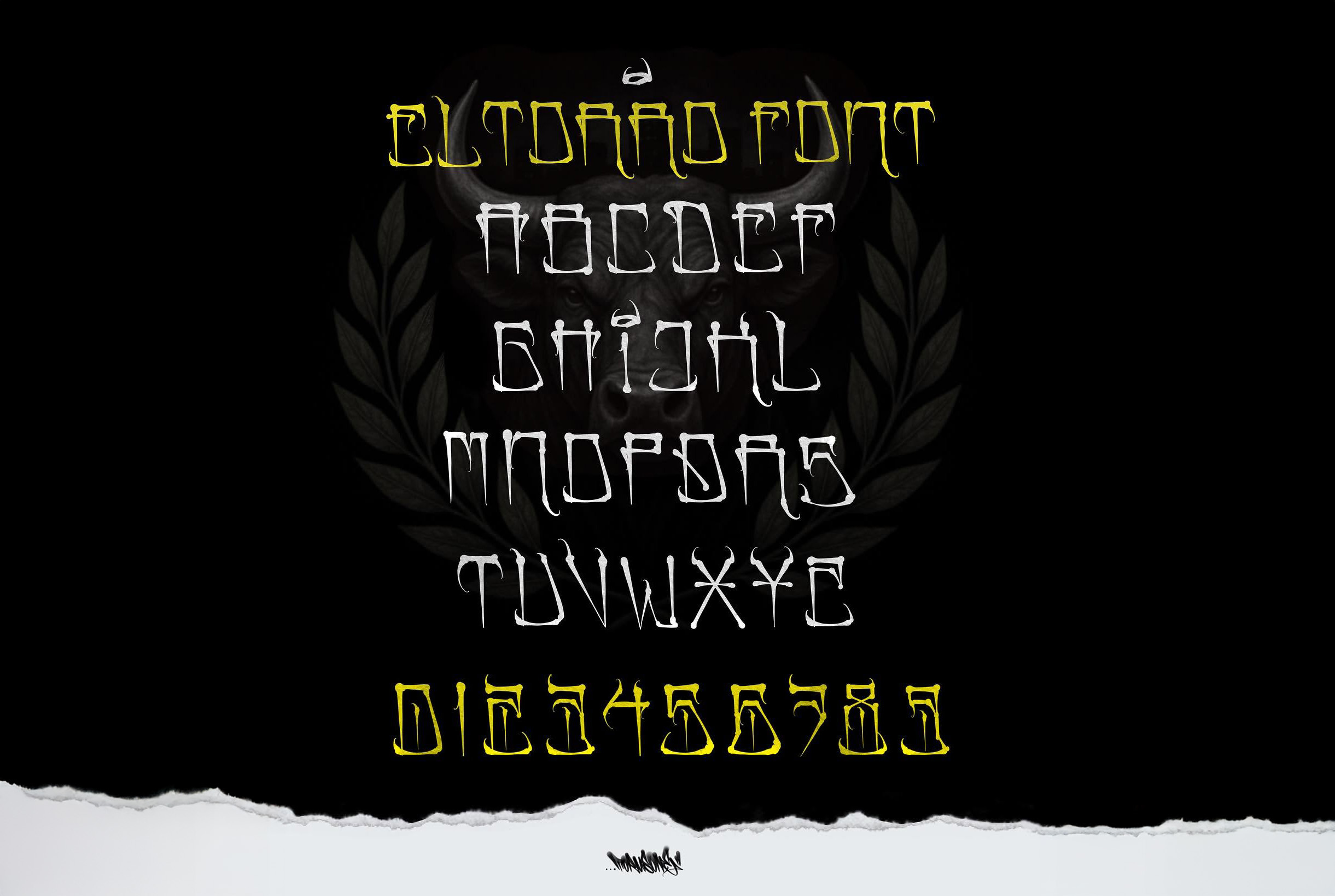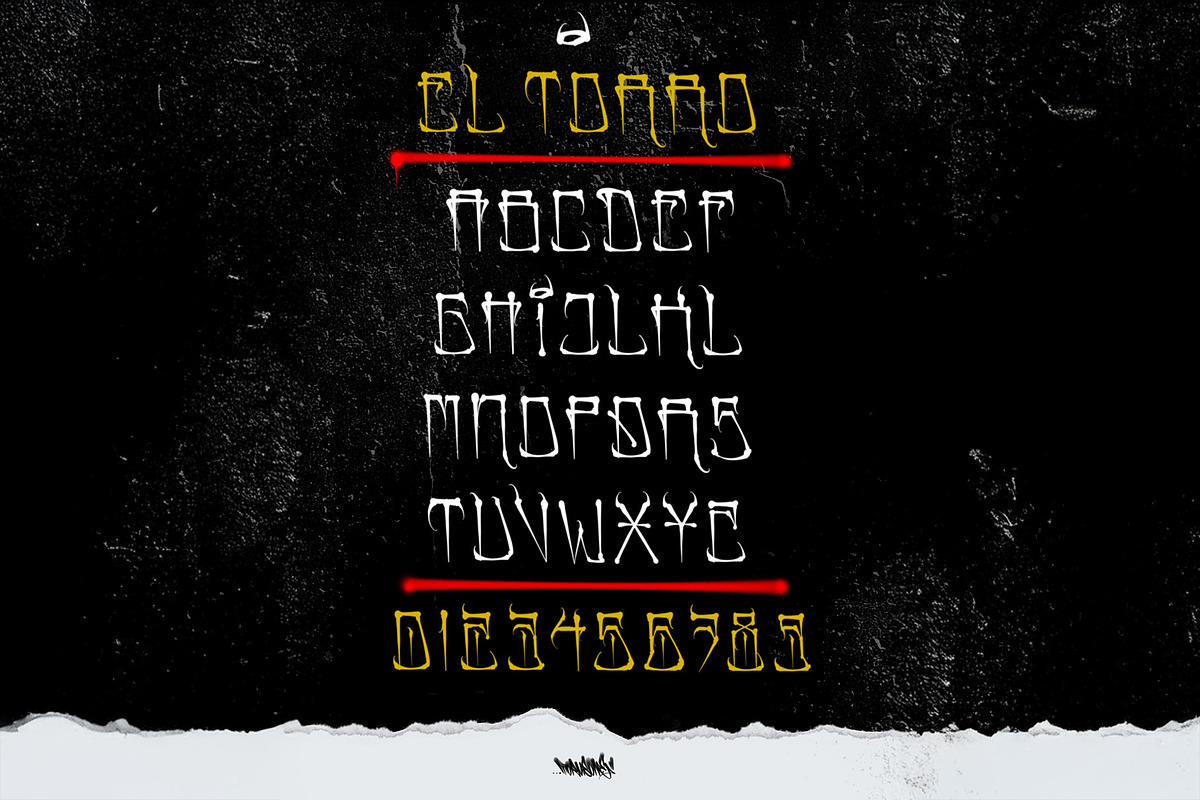
EL TORRO – Chicano Tattoo Font
🔥 EL TORRO FONT – Raw Street Lettering with Style by Torus1
Time to drop something bold and brutal. EL TORRO FONT brings that Chicano-inspired, LA street energy – blended with Torus1’s signature handstyle.
26 uppercase letters (A–Z) Numbers 0–9 25 special characters – sharp, expressive, full of attitude Perfect for: